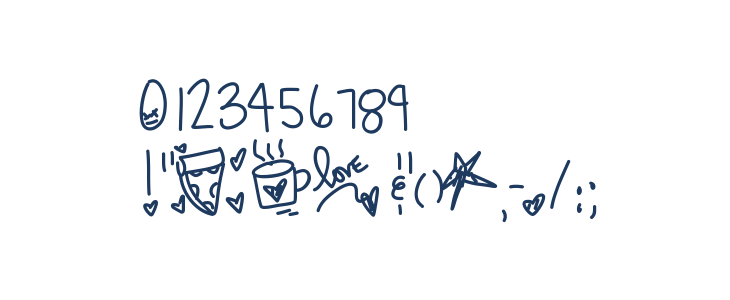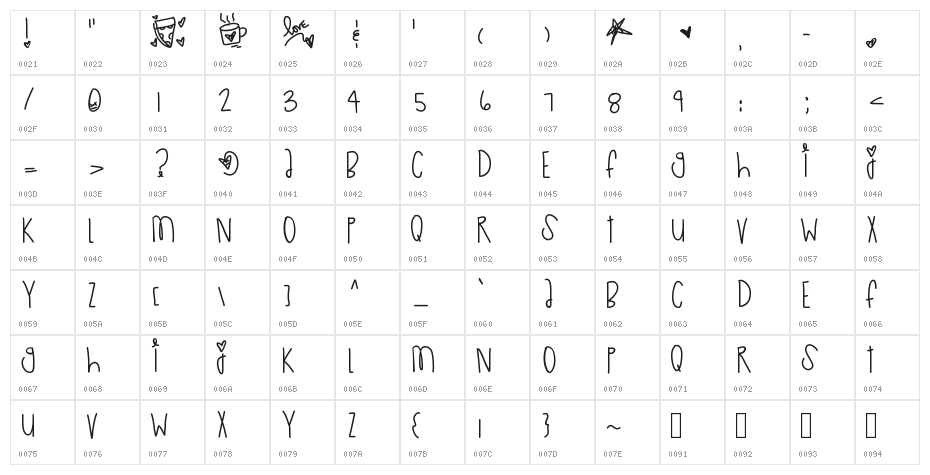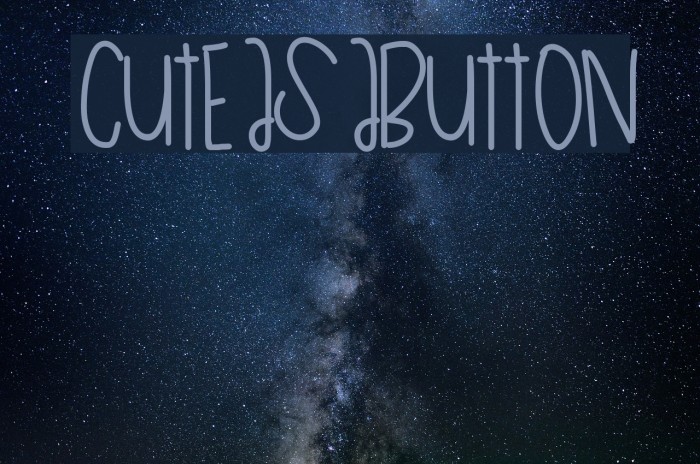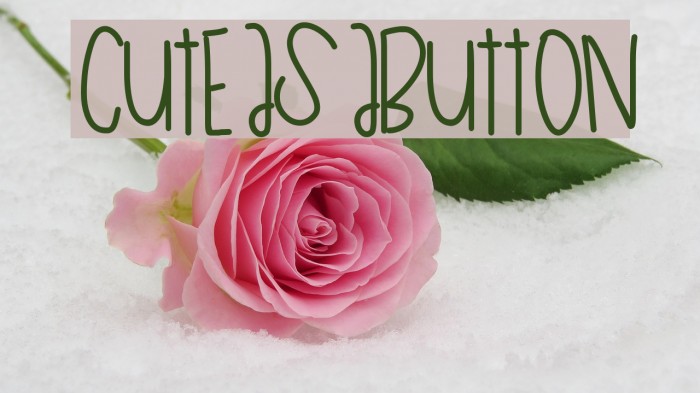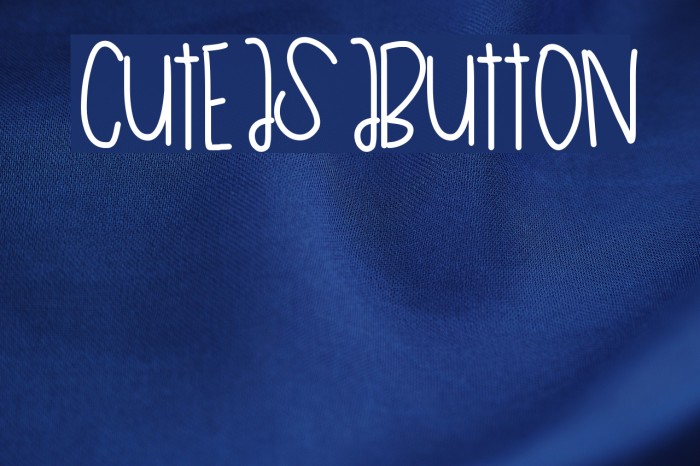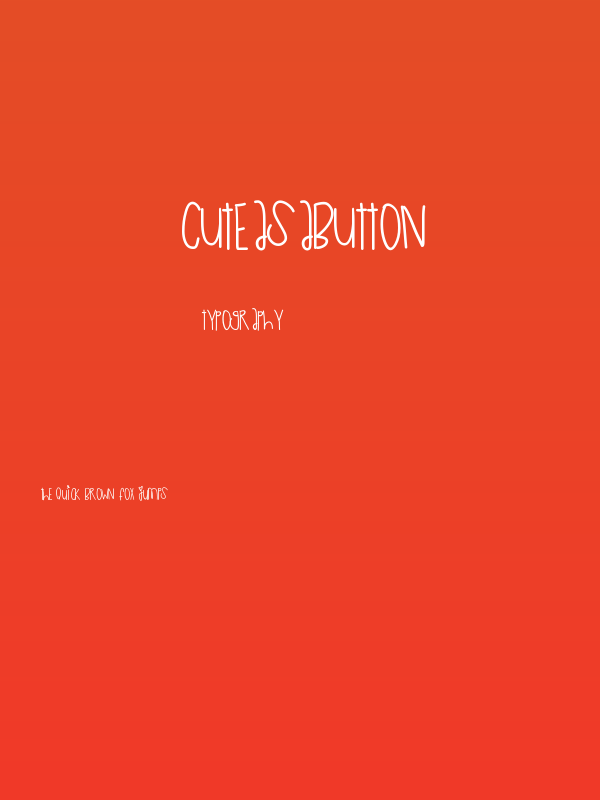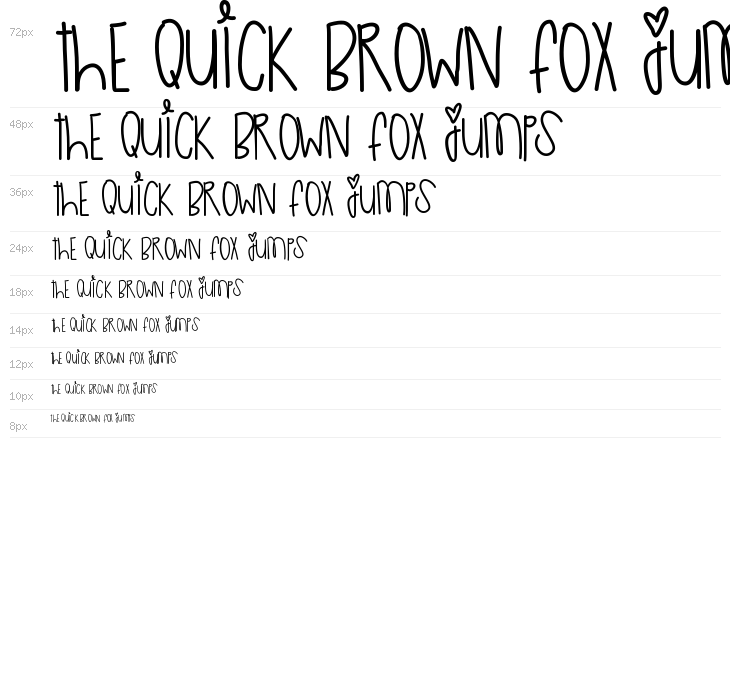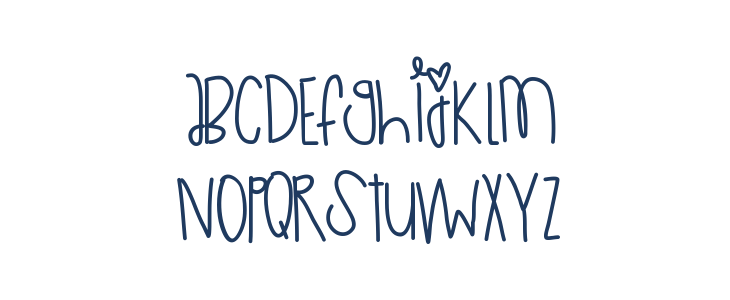
CuteAsAButton Font
CuteAsAButton Description
This playful and whimsical font features a handwritten style with a charming, casual flair. The letters are tall and narrow, with a slight slant that adds to its informal and friendly appearance. The strokes are consistent in width, giving it a clean and modern look, while the occasional heart embellishments add a touch of fun and creativity. The numbers and special characters maintain the same playful aesthetic, making it versatile for various design needs. This font is perfect for projects that require a personal touch, such as greeting cards, invitations, or playful branding materials.